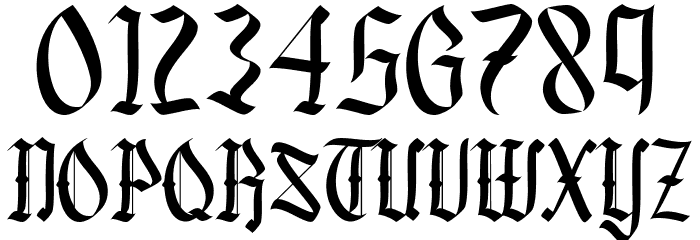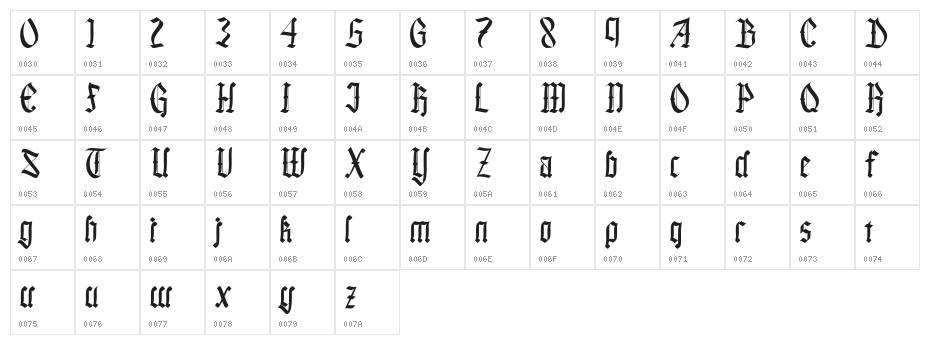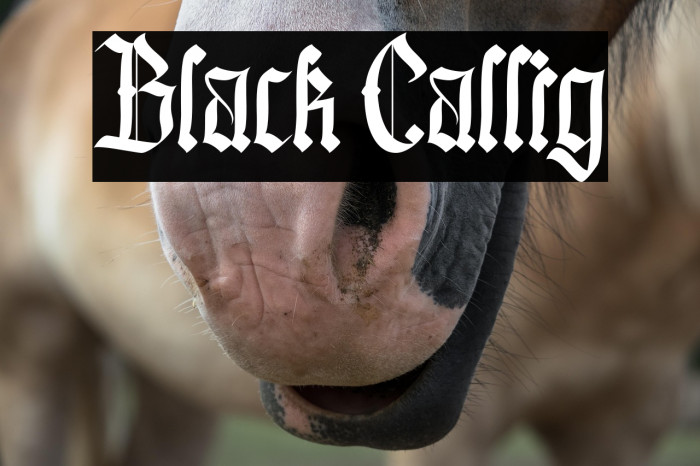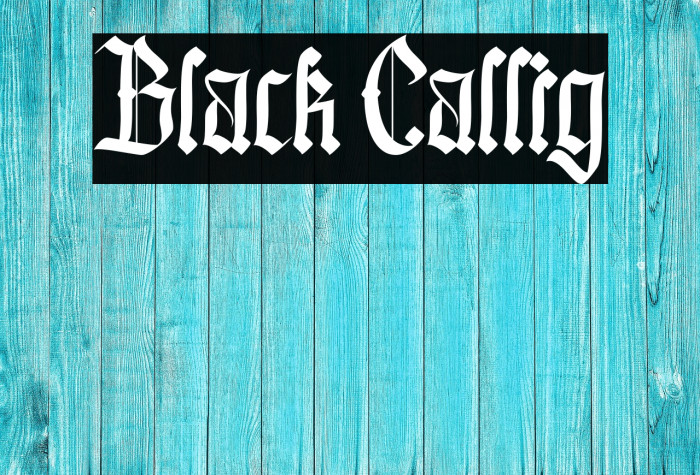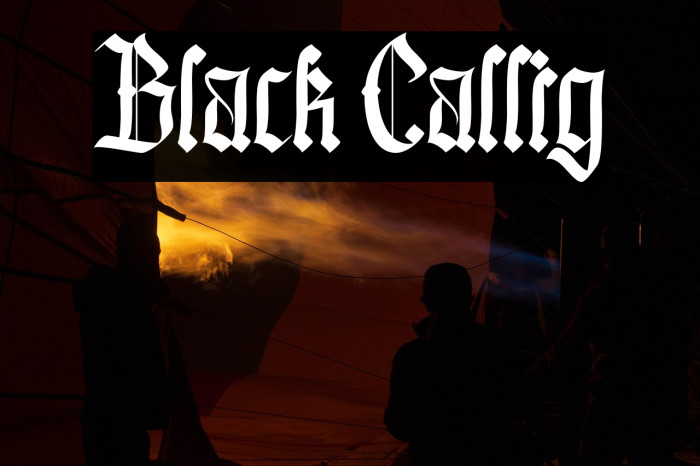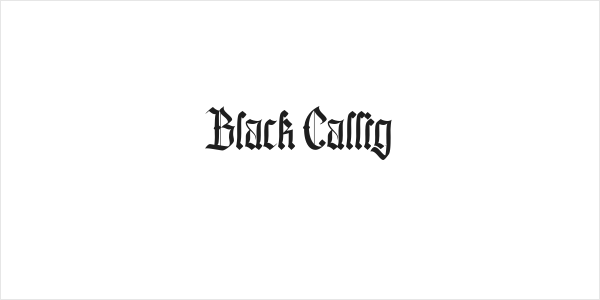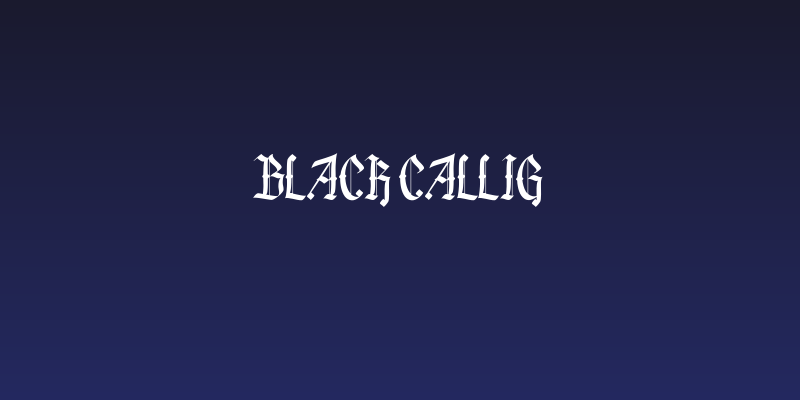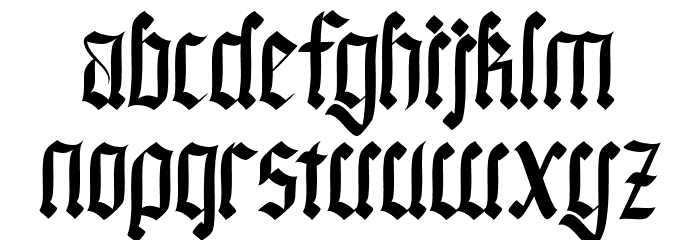
Black Callig Font
Black Callig Description
This font exhibits a traditional blackletter style, characterized by its intricate and ornate design. The letters are bold and angular, with sharp edges and a distinct medieval aesthetic. Each character is crafted with a high level of detail, featuring thick vertical strokes and contrasting thin horizontal lines, which create a dramatic and eye-catching appearance. The font maintains a consistent weight throughout, providing a uniform look that enhances its readability despite the complex design. The uppercase and lowercase letters are well-balanced, with the uppercase letters displaying a more pronounced and elaborate form. The numerals and special characters are designed to match the overall style, ensuring a cohesive appearance across all text elements.
| Proposed Projects | Ideal for projects requiring a historical or gothic touch, such as book covers, posters, or branding for vintage-themed events. |